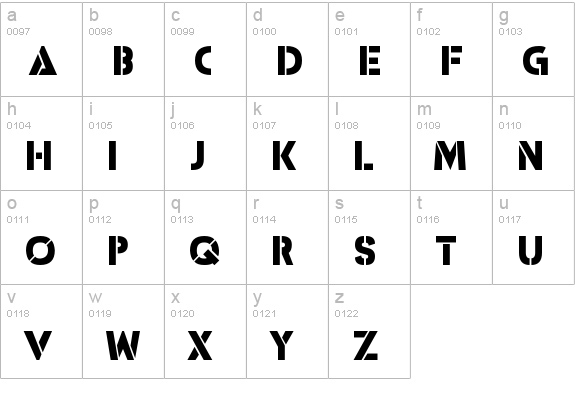
ICBM SS-20 Font Details
The ICBM SS-20 font is a sleek and modern typeface that exudes a sense of power and sophistication. With its sharp lines and bold strokes, this font is perfect for making a statement in your designs. Whether you're creating a poster, logo, or website, the ICBM SS-20 font will add a touch of elegance and style. Best of all, this font is completely free to download at FontsMarket.com. Simply visit the website and start using the ICBM SS-20 font in your projects today. Don't miss out on this fantastic opportunity to enhance your designs with a high-quality and eye-catching typeface.